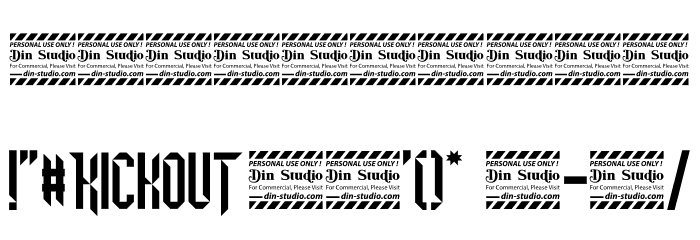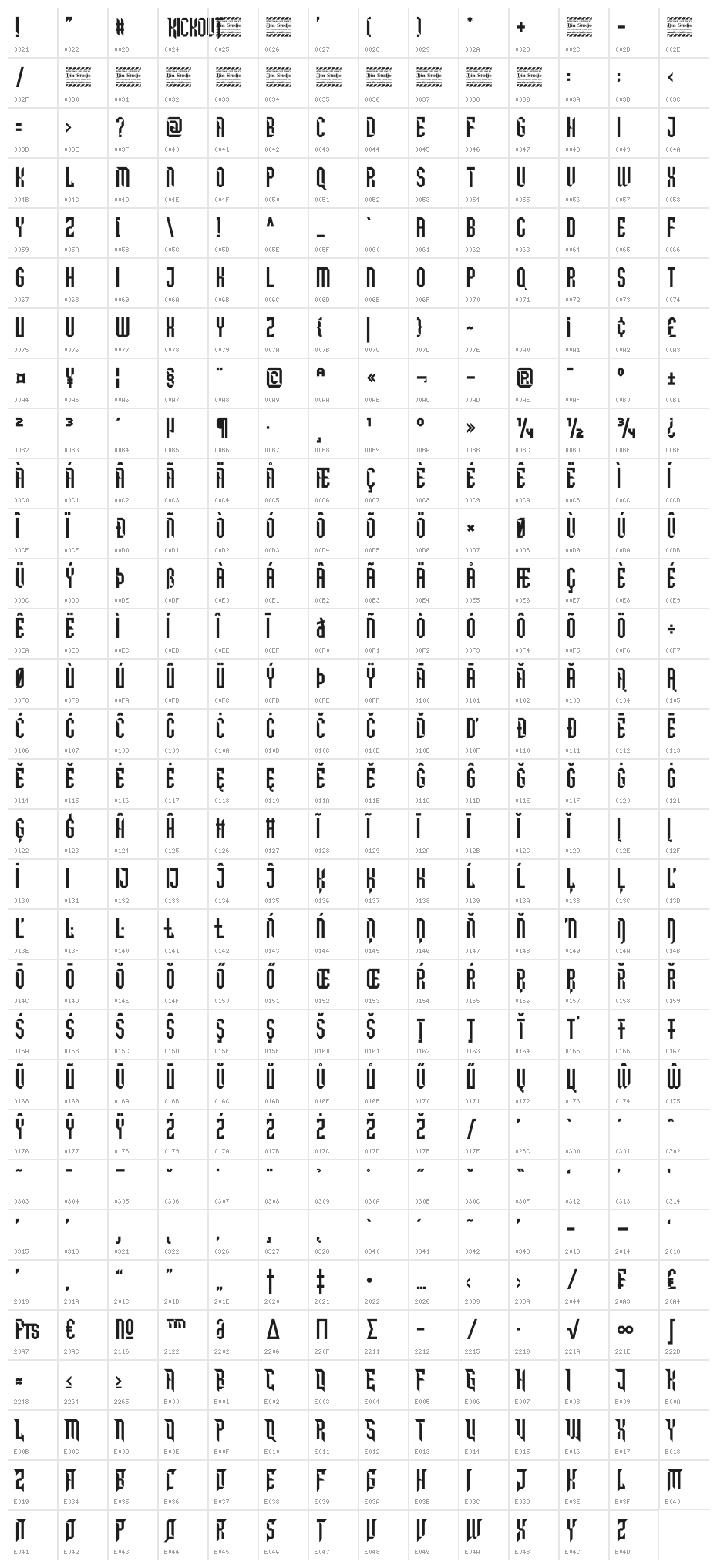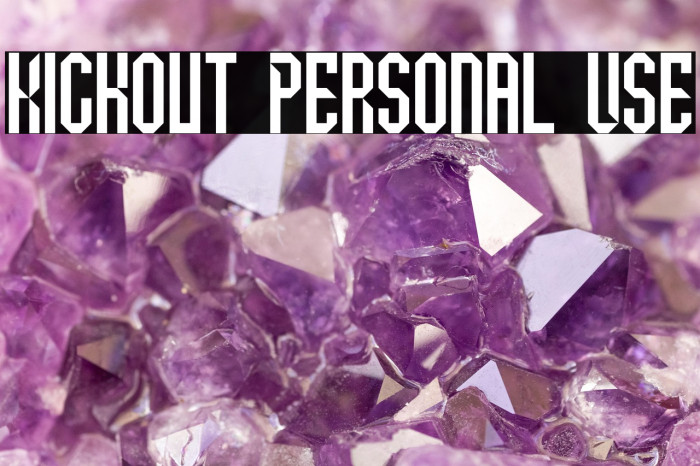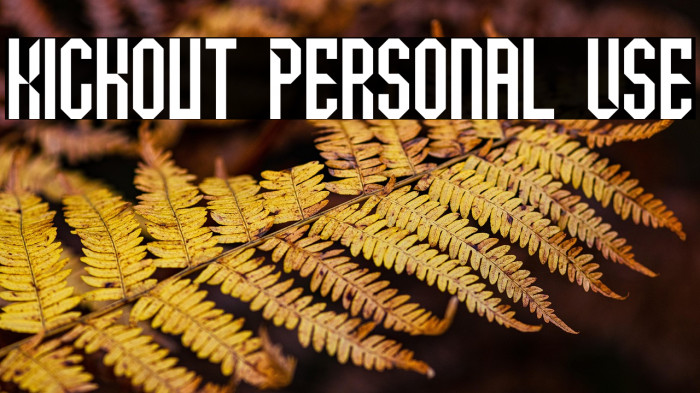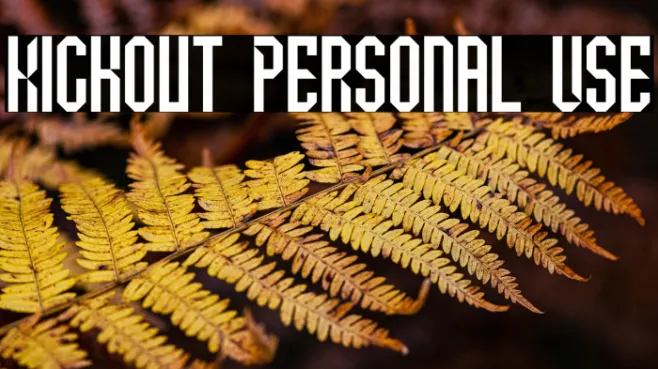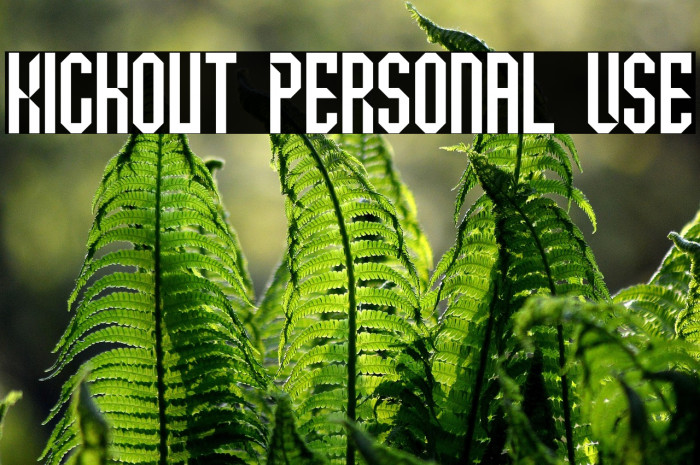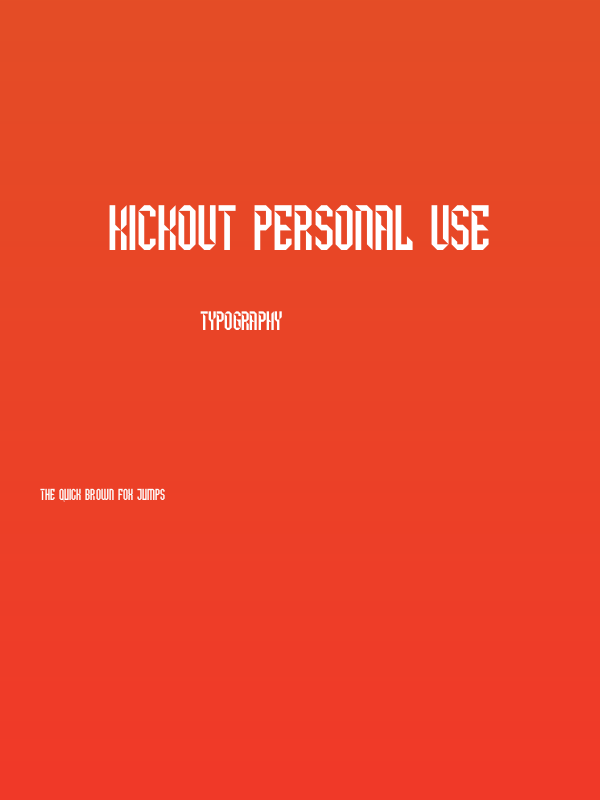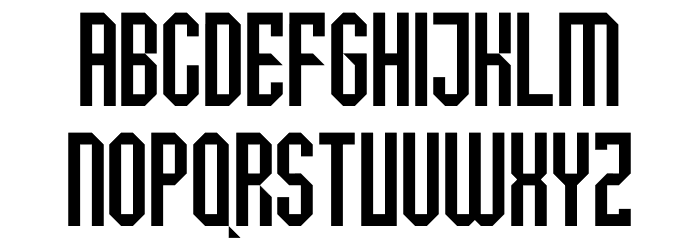
Kickout Personal Use Font
Kickout Personal Use Description
This font features a bold, geometric design with sharp angles and a strong presence. The uppercase letters are particularly striking, with a blocky, futuristic style that commands attention. The characters are tightly spaced, enhancing the compact and impactful look. The font's unique style makes it ideal for projects that require a modern and edgy aesthetic. Its distinct appearance is well-suited for branding, posters, and headlines where a bold statement is needed. The font's angular design elements give it a dynamic and energetic feel, perfect for creative and contemporary applications.
| Proposed Projects | Ideal for branding, posters, headlines, and any project needing a modern, edgy aesthetic. |